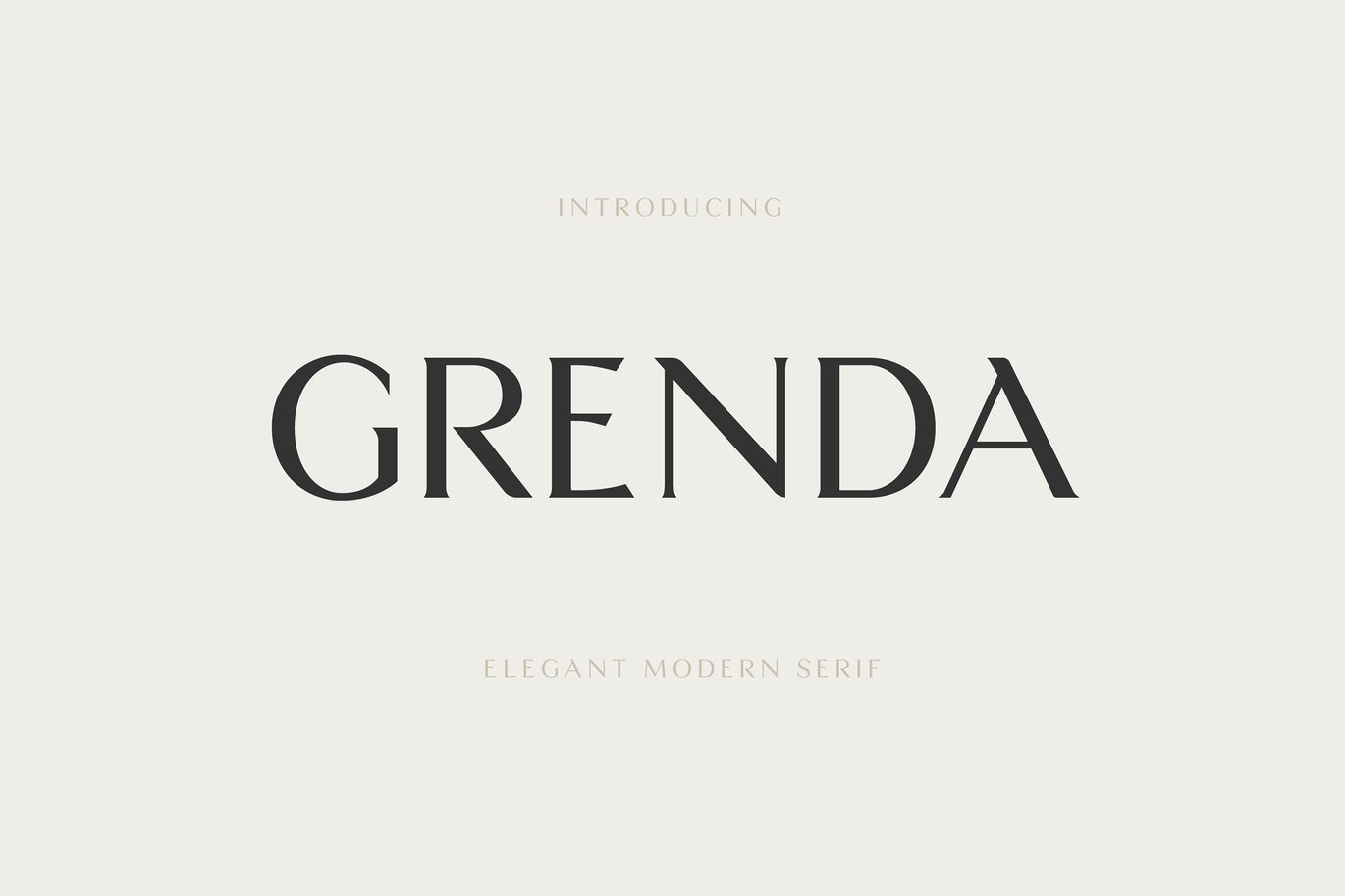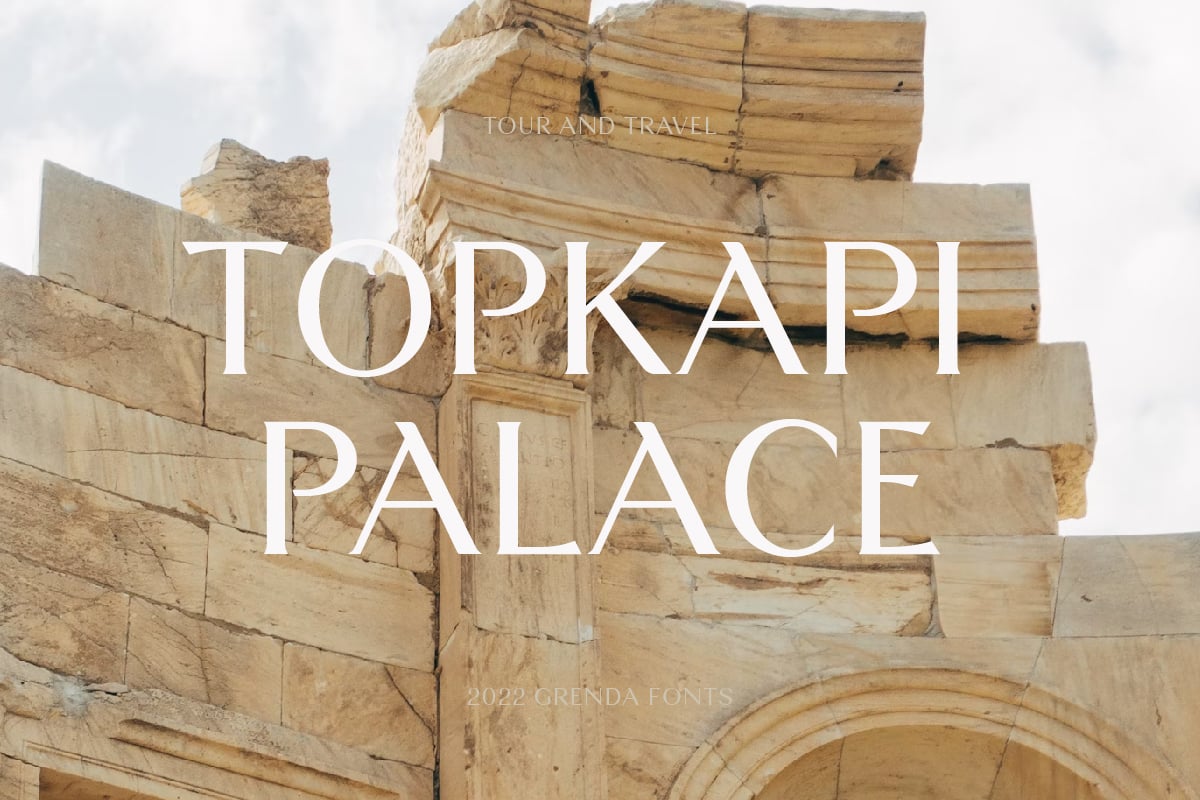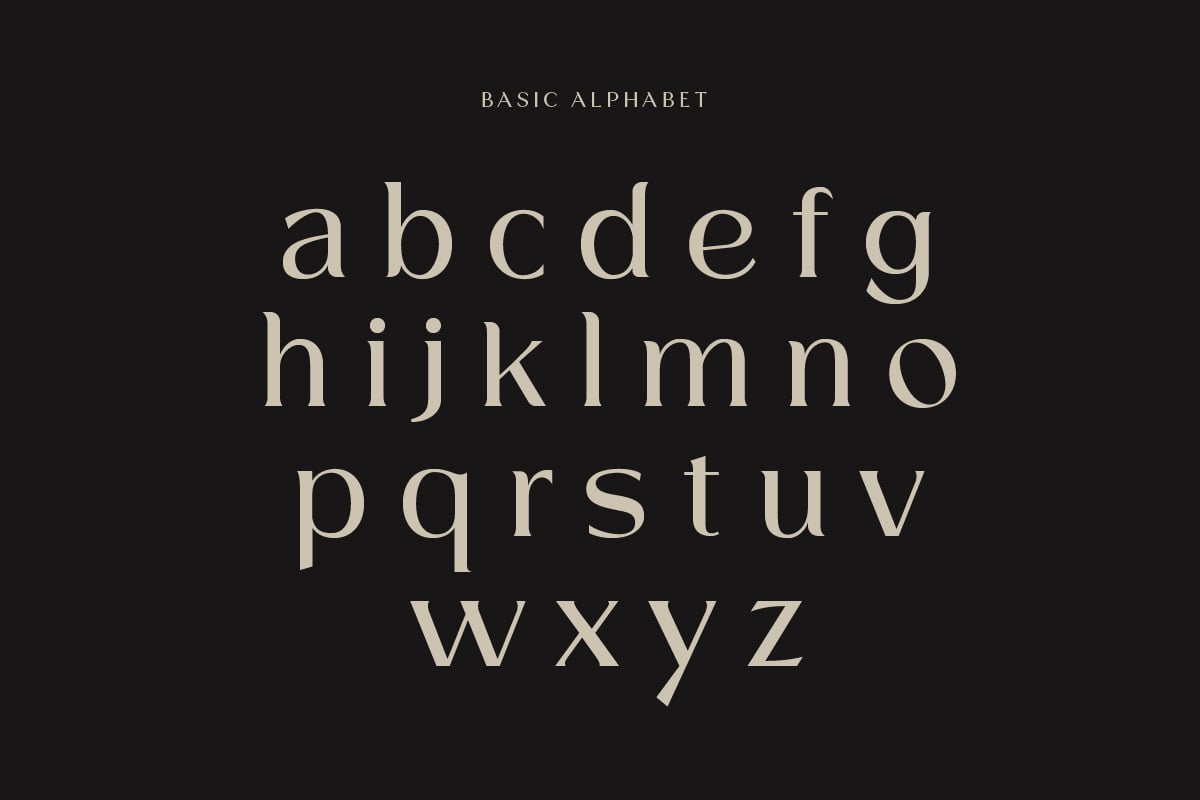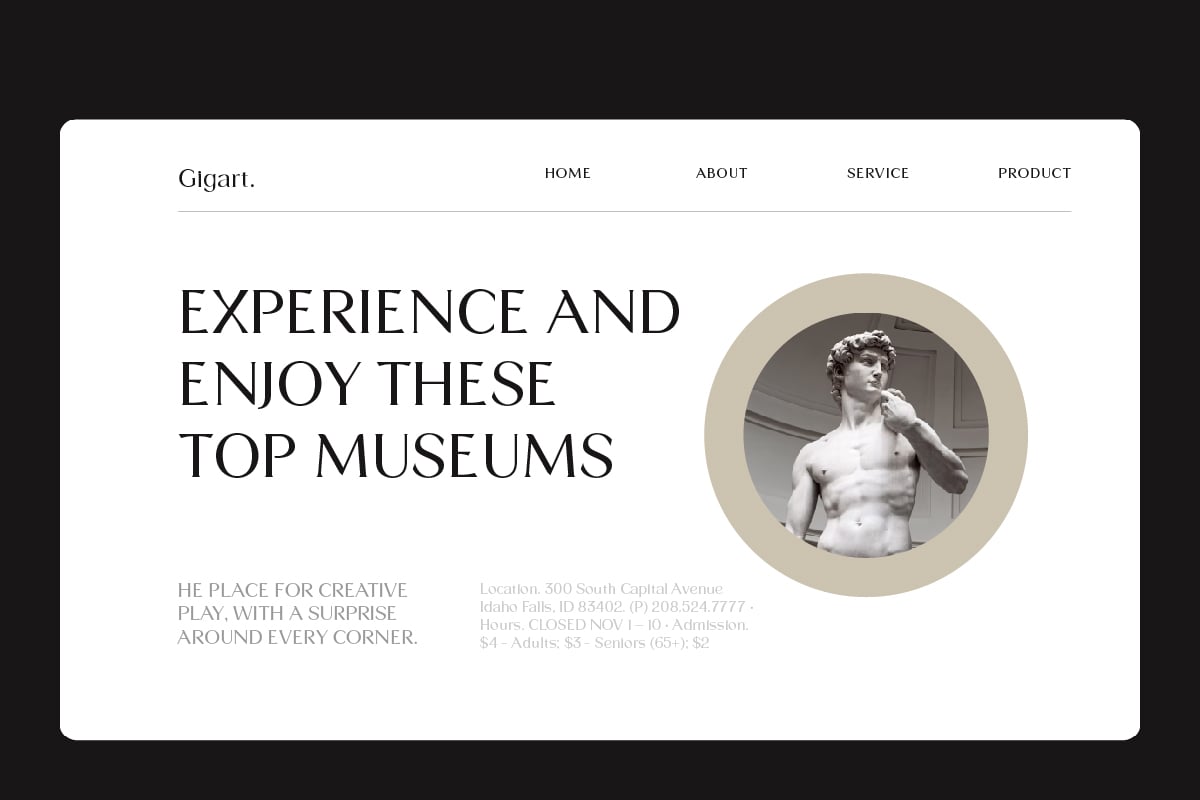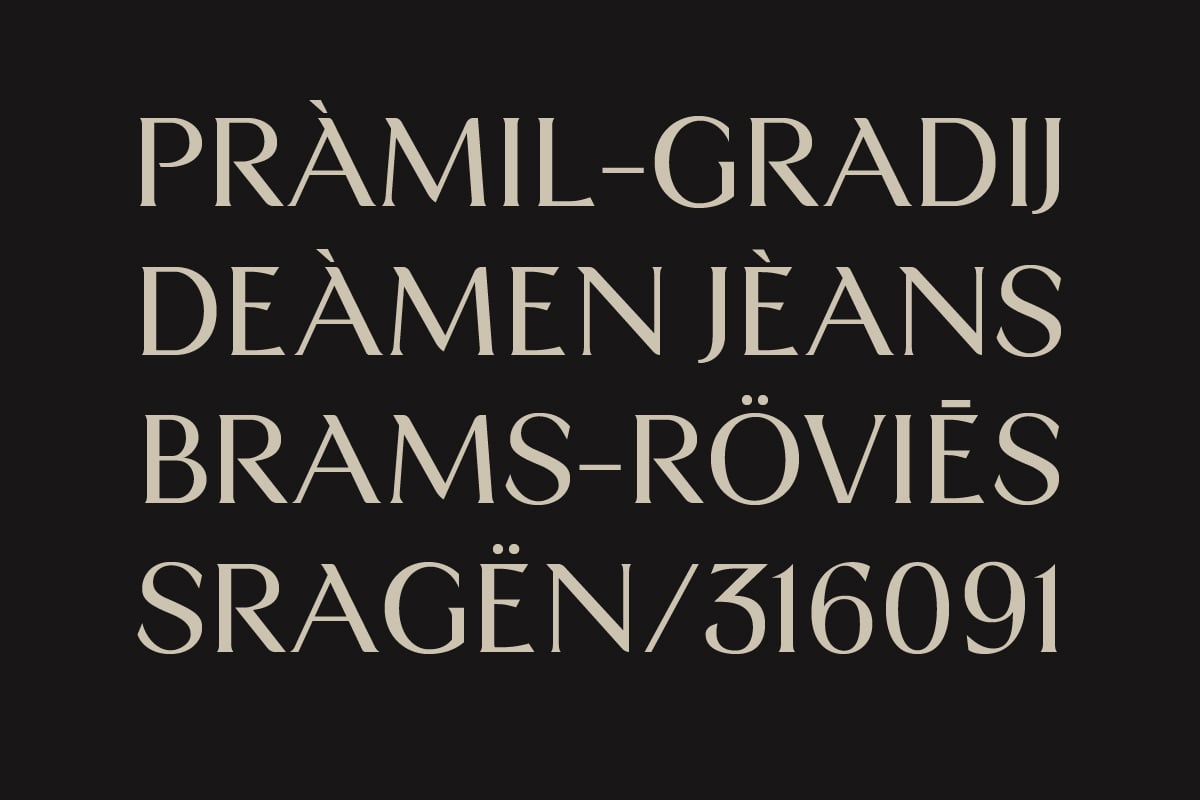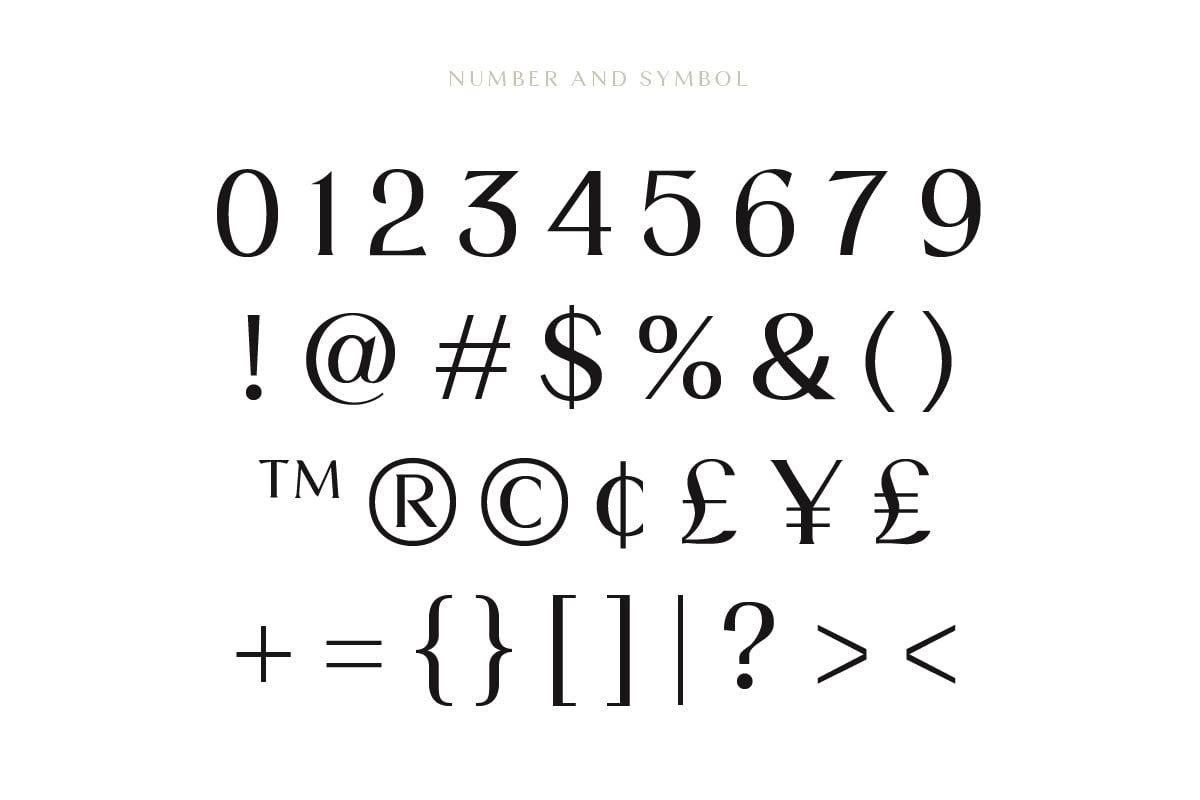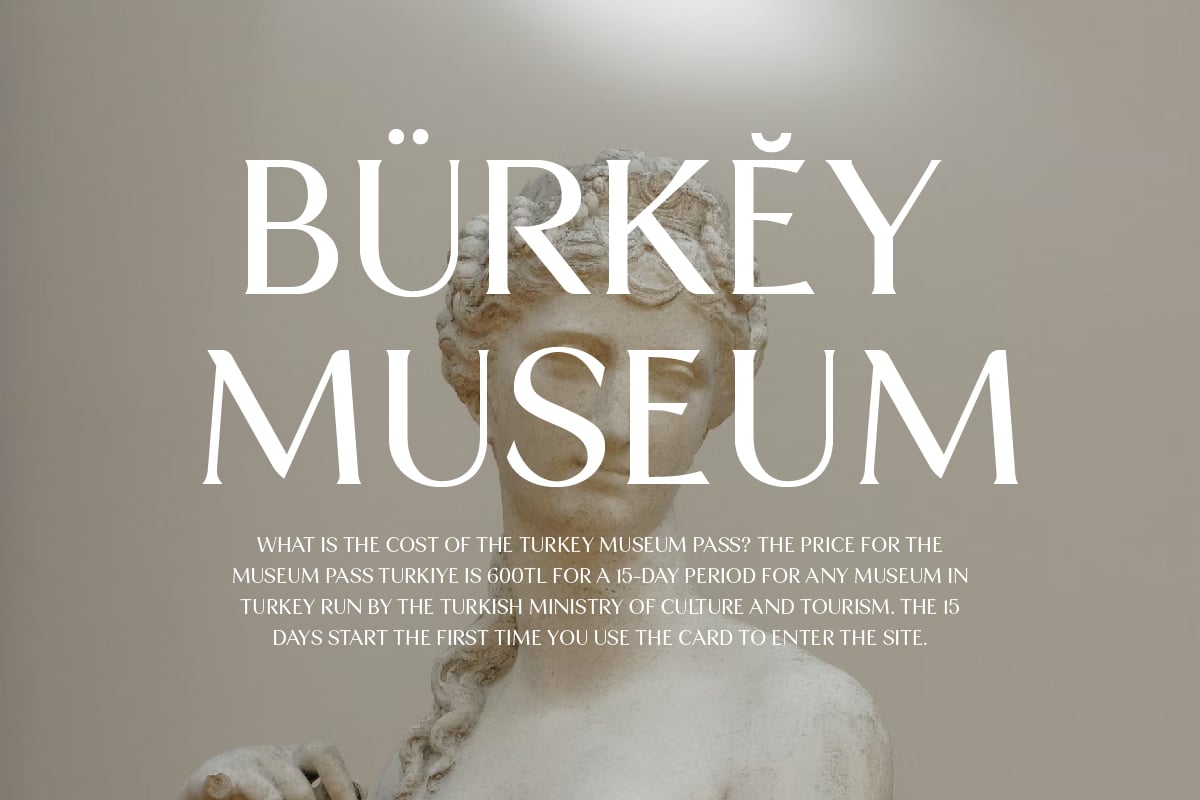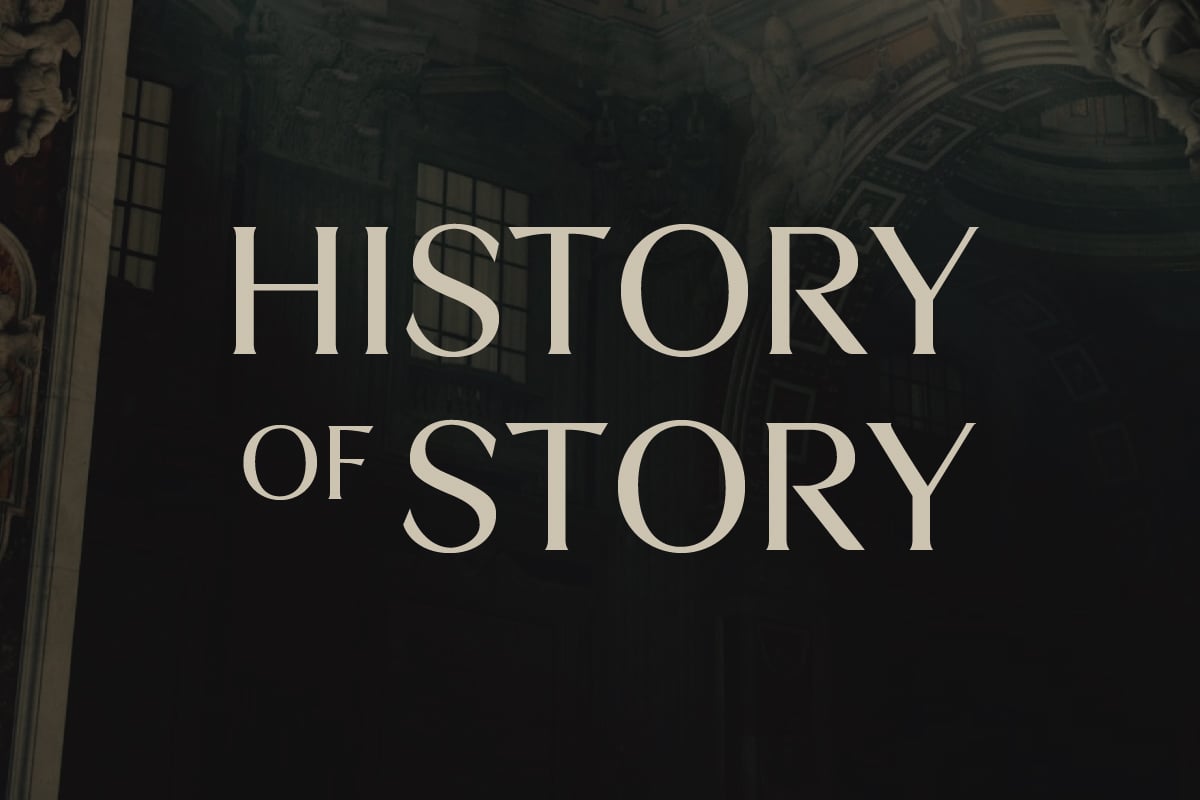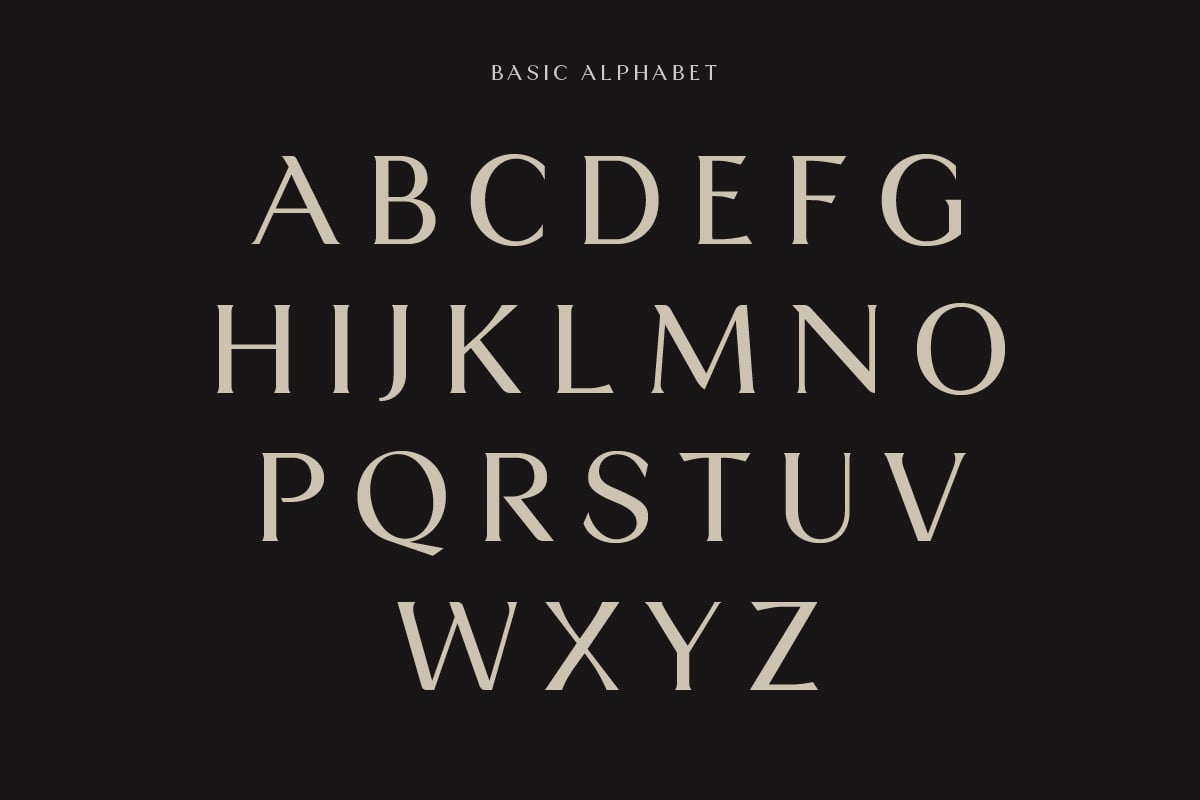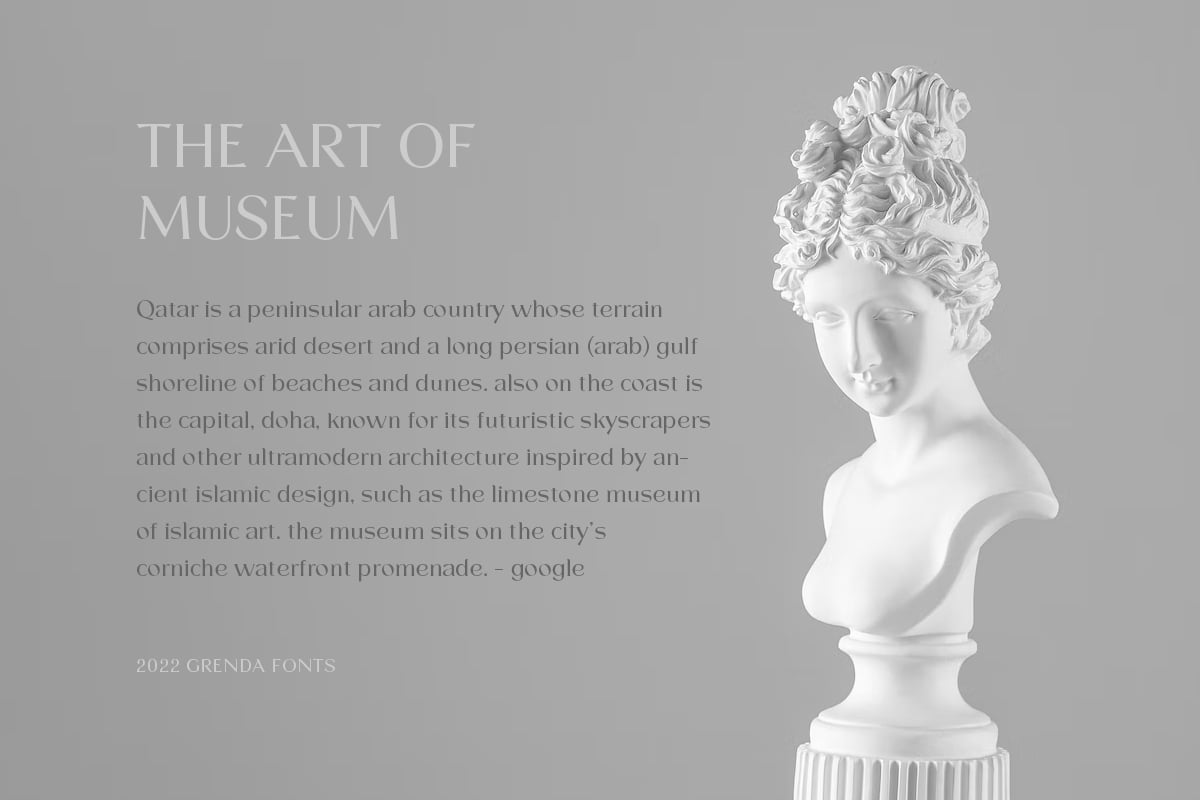
Grenda Modern Serif Font
Grenda is a modern and elegant serif font. This serif font is inspired by Arabic and European art. Serif fonts are perfect for you, a creative worker who wants to make something modern and elegant. Perfect for branding, logos, headings, advertising, product packaging, web design, print design, film covers, youtube, & more!
Modern Serif Fonts
- Serif typeface
- Ranges in style from sleek & subtle to luxurious
- Suits branding, logos, headings & book covers; anything display!
- Character set A-Z
- Stylistic Alternations.
- Numbers & Punctuation.